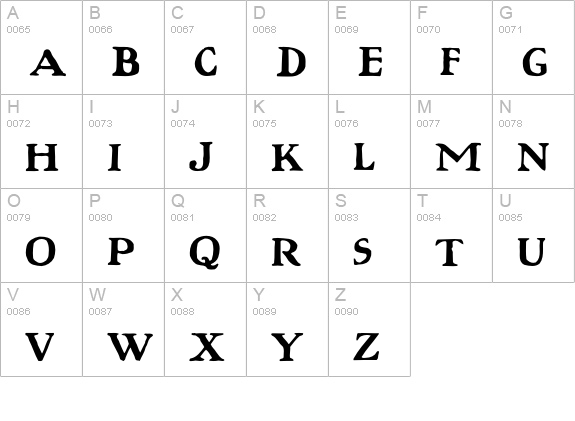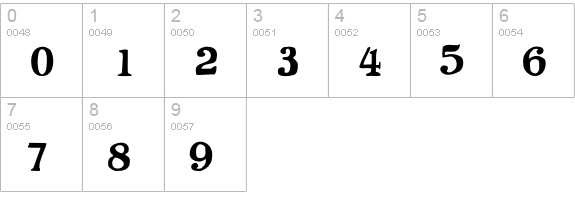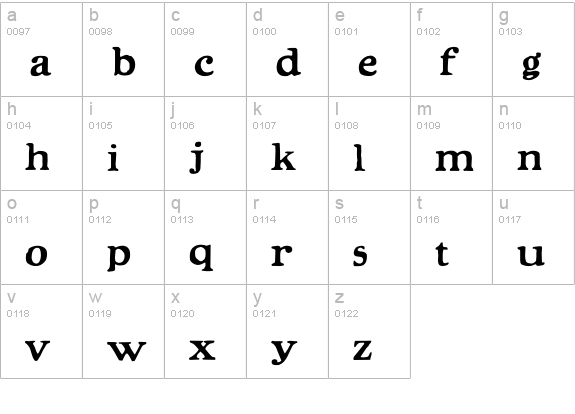
P22Kane Font Details
P22Kane font is a visually stunning typeface that exudes elegance and charm. Its unique combination of classic letterforms and modern design elements make it a versatile choice for a wide range of creative projects. With its bold and stylish appearance, P22Kane font is sure to make a lasting impression on any design. What sets P22Kane font apart is not only its exceptional aesthetics but also its availability as a free download. Yes, you read that right - this remarkable font is freely available to download at FontsMarket.com. This means that you can effortlessly enhance your designs with the beauty of P22Kane font without having to spend a penny. Whether you're working on a branding project, designing a logo, or creating eye-catching headlines, P22Kane font is a perfect choice. Its clean lines and balanced proportions give it a timeless appeal, while its unique details add a touch of sophistication. This font is designed to captivate and impress, making it a go-to option for designers who want to make a lasting impact. The versatility of P22Kane font is truly remarkable. It seamlessly adapts to various design styles, from minimalist and modern to elegant and traditional. Its legibility and readability make it suitable for a wide range of applications, including print materials, digital designs, and even signage. Downloading P22Kane font from FontsMarket.com is a breeze. Simply visit the website and find the font in the extensive collection. Once you've found it, click the download button, and in a matter of seconds, you'll have this extraordinary font at your fingertips. FontsMarket.com is a reliable source for high-quality fonts, ensuring that you can confidently incorporate P22Kane font into your designs. In conclusion, P22Kane font is a true gem in the world of typography. Its captivating design, versatility, and availability as a free download make it a must-have for any designer or creative professional. Discover the power of P22Kane font and elevate your designs to new heights. Download it for free at FontsMarket.com and let your creativity shine.